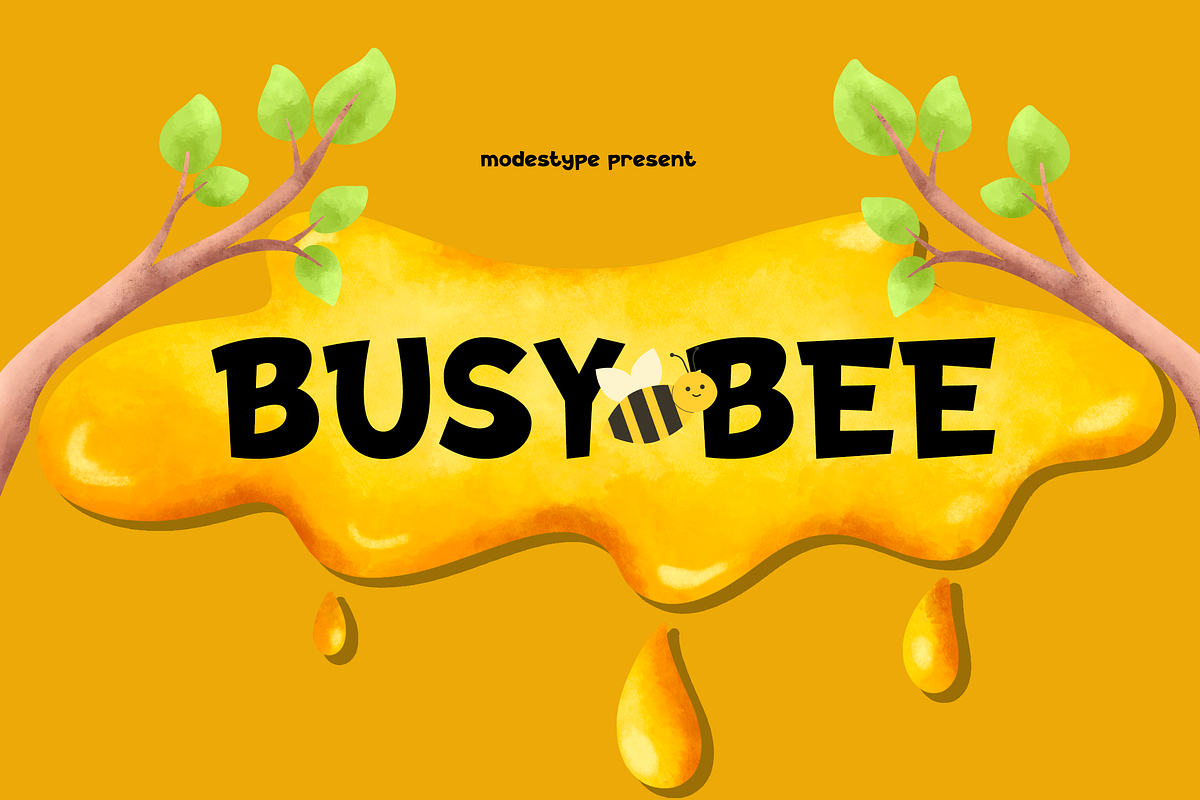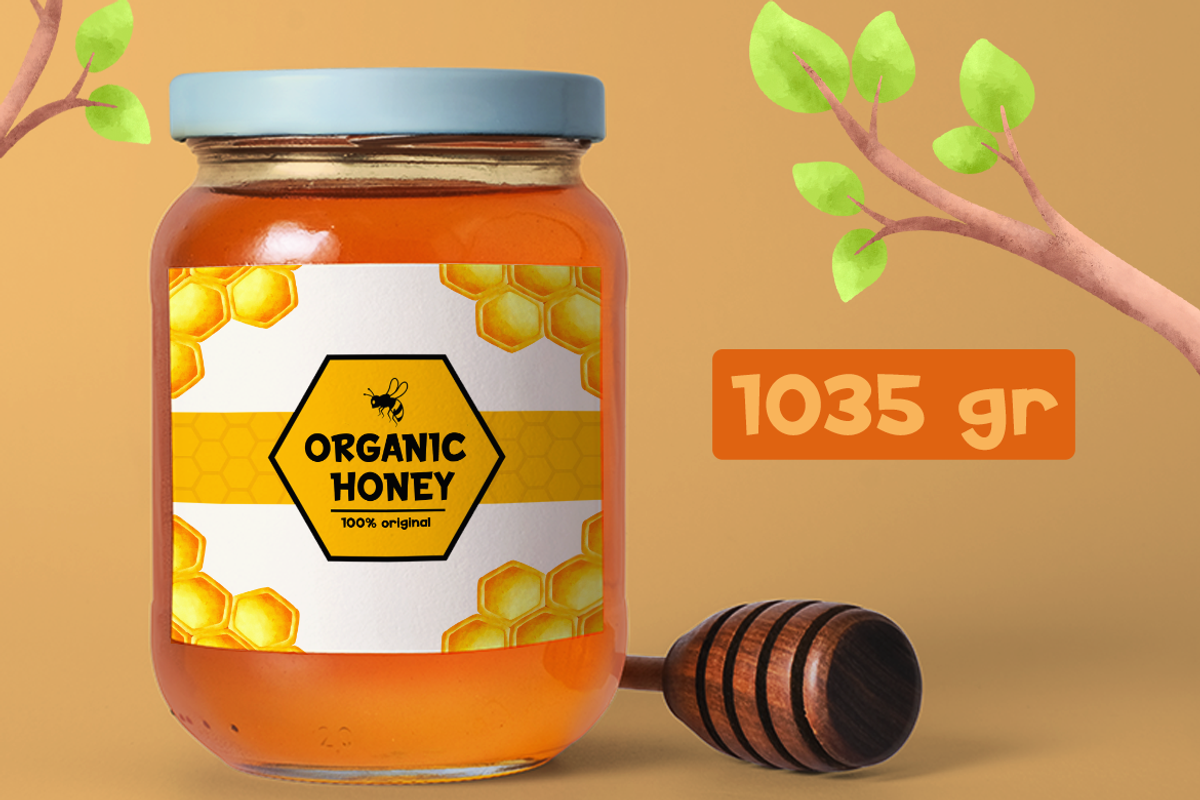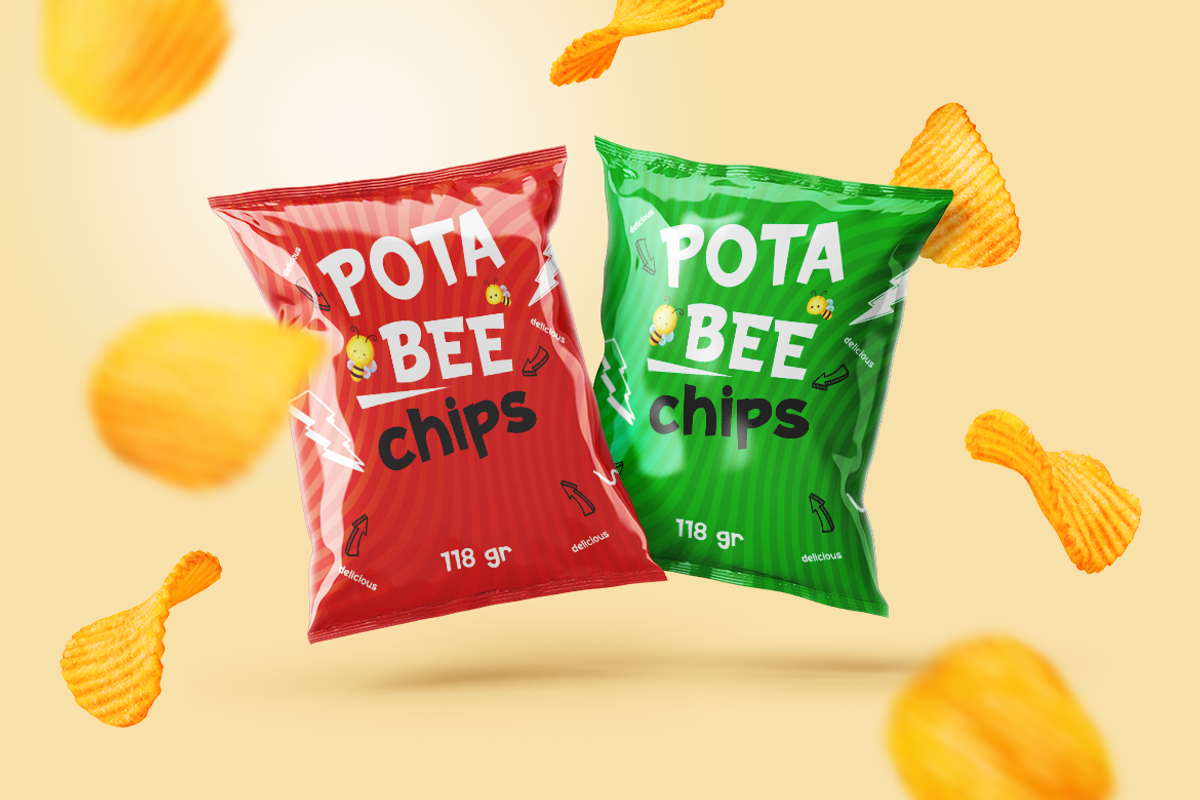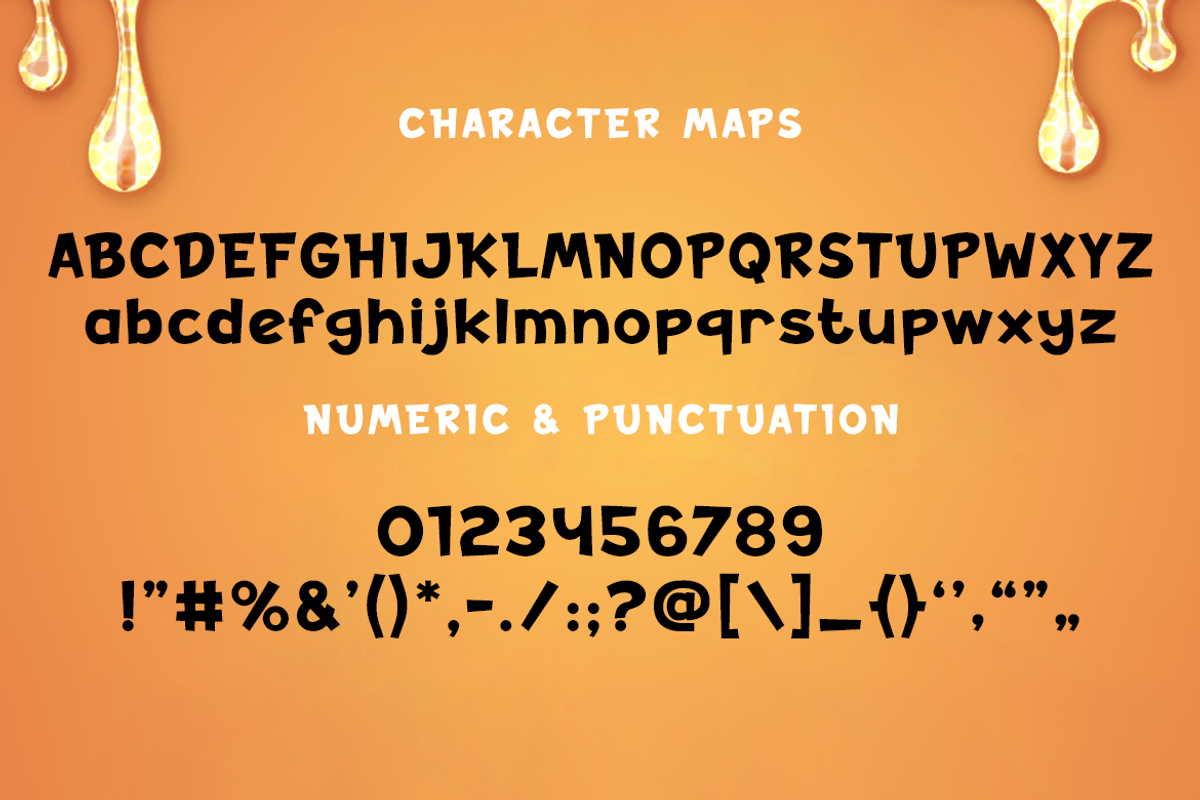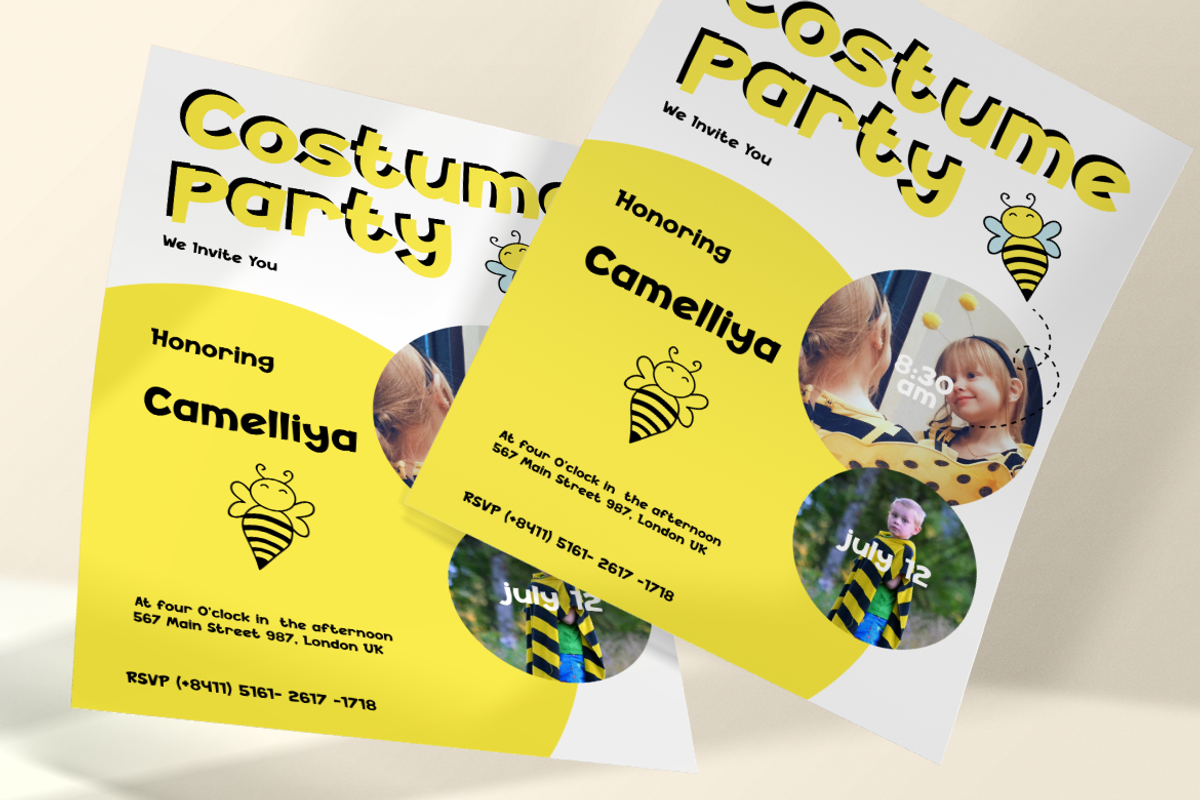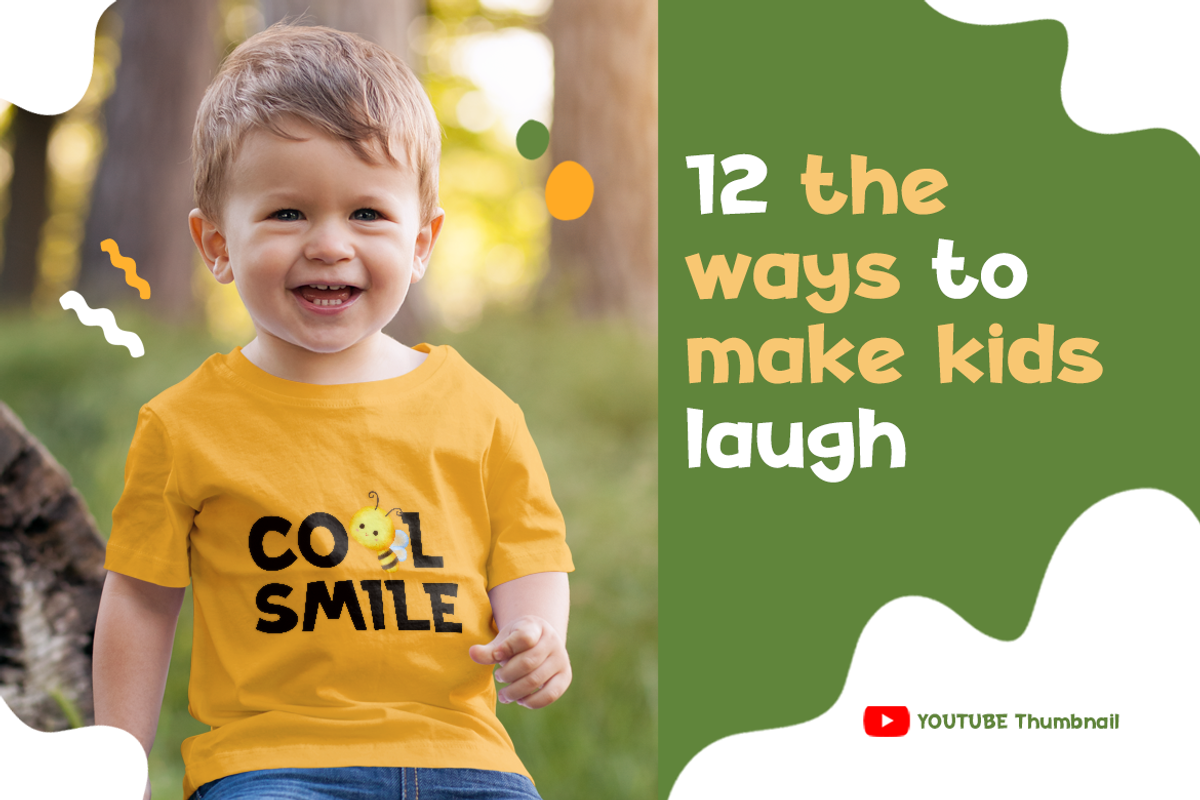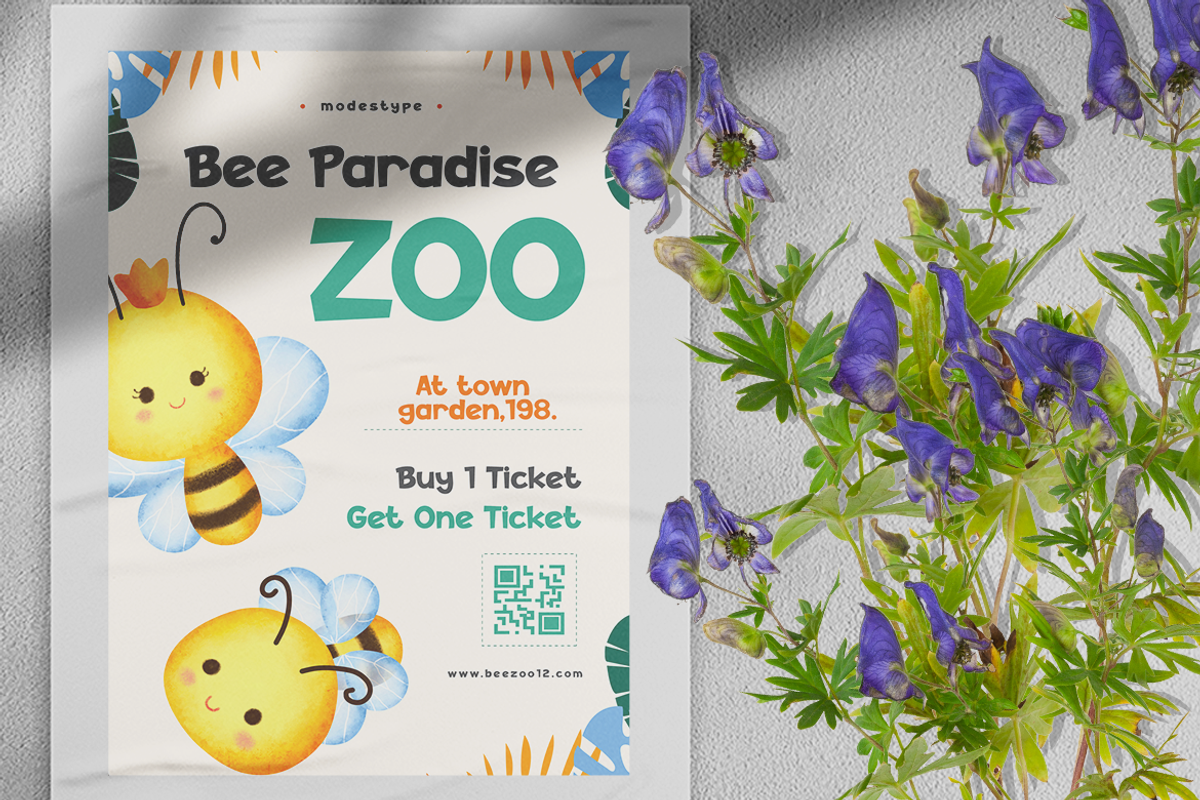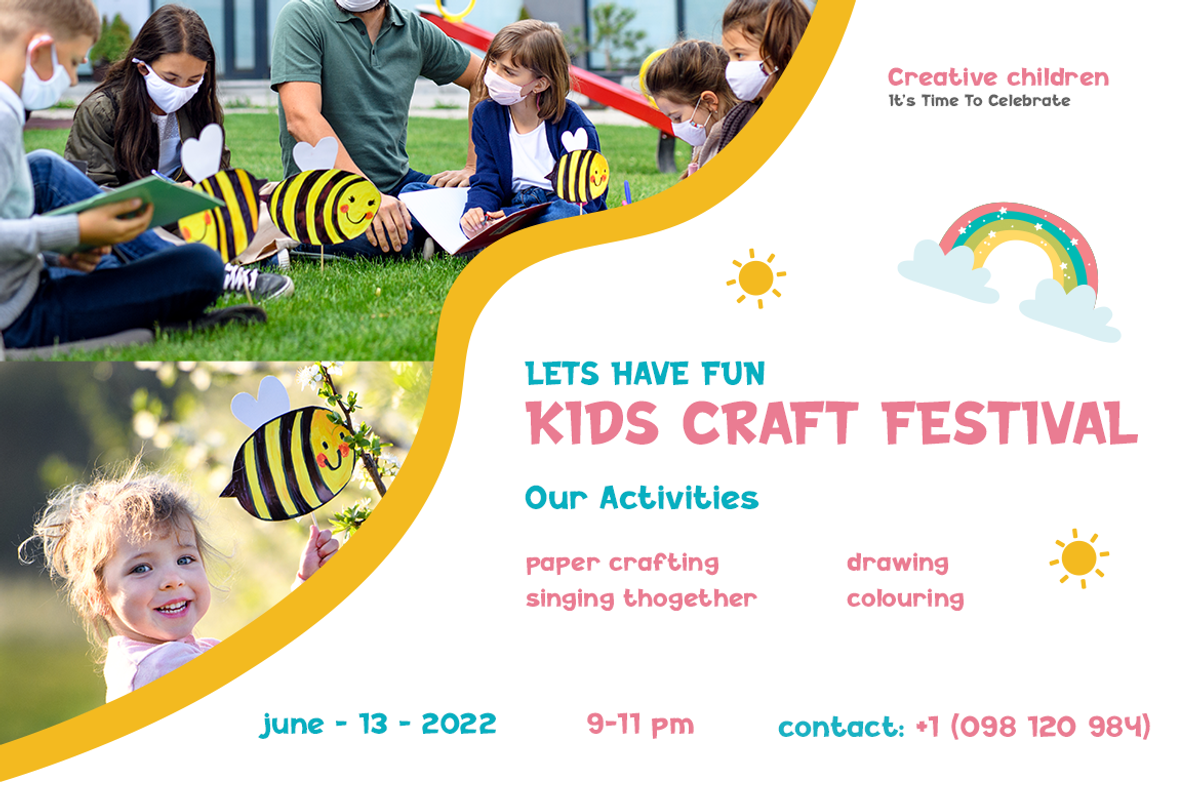
Busy Bee - Cheerful Kids Font
Busy Bee – Kids Font
World of bee is full of activities, hence this Busy Bee is born. The read-ability is a top notch while keeping it friendly and engaging to the kids audiences.
Suit perfect for children's books market, online games, teens event posters, school supplies font, posters, movie titles, youtube covers, youtube thumbnails, social media page covers, and so on...